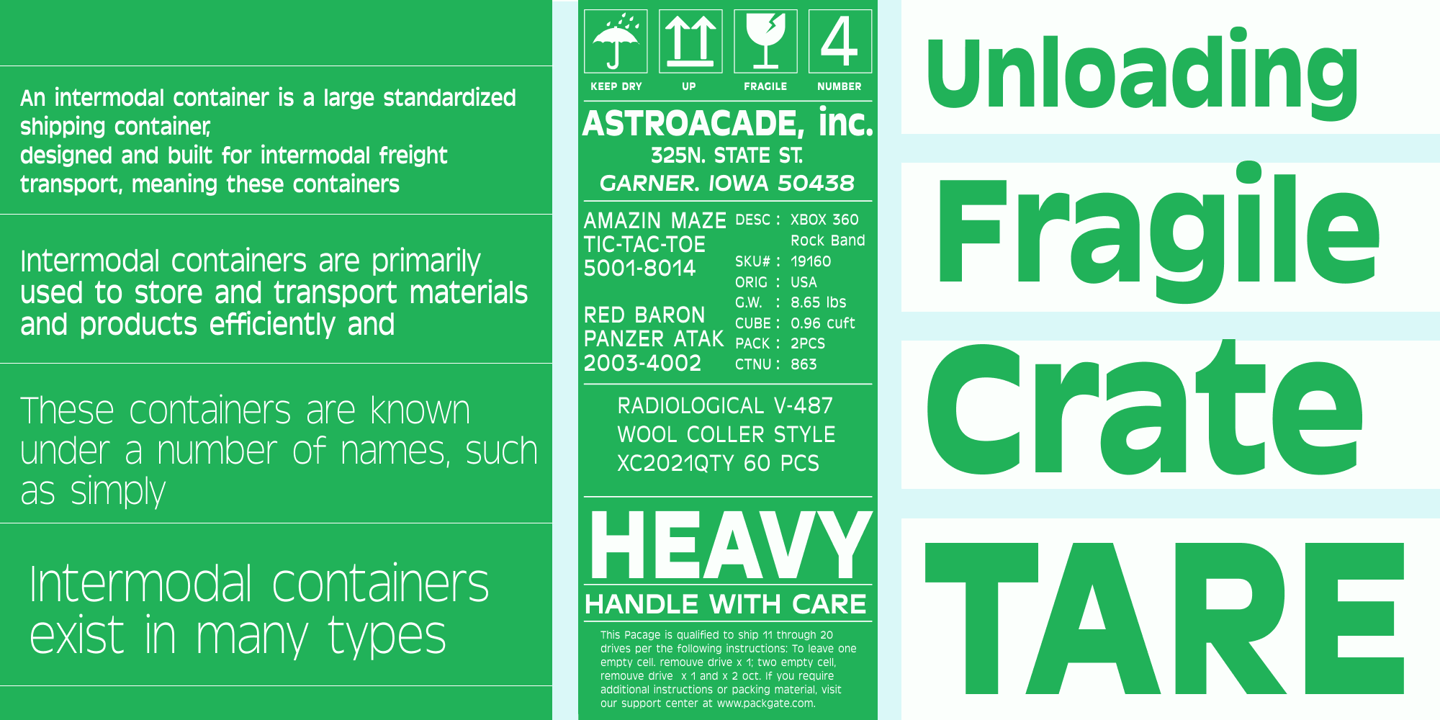
Garnison, is a contemporary take on the humanist sans serif from Eric Gill with readability and craftsmanship at its core. Specially designed for editorial and publishing purposes.
Garnison blends Eric Gill’s humanist sensibilities with a younger, more versatile attitude with 74 variations ranging from lightest hairline to heaviest black, the family features an extensive set of weights and optical sizes, matching true italics and lots of cool OpenType features.
The variation in stroke width and letterforms help it achieve great scalability while still retaining its character.